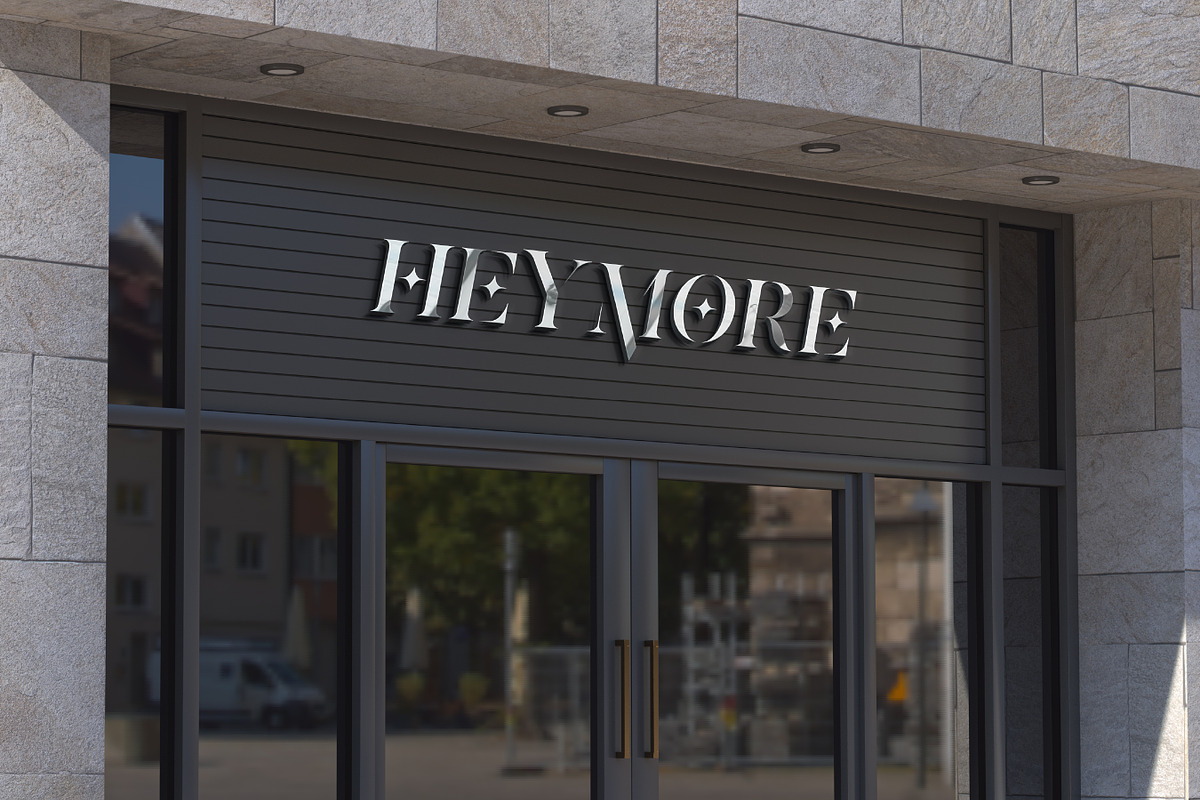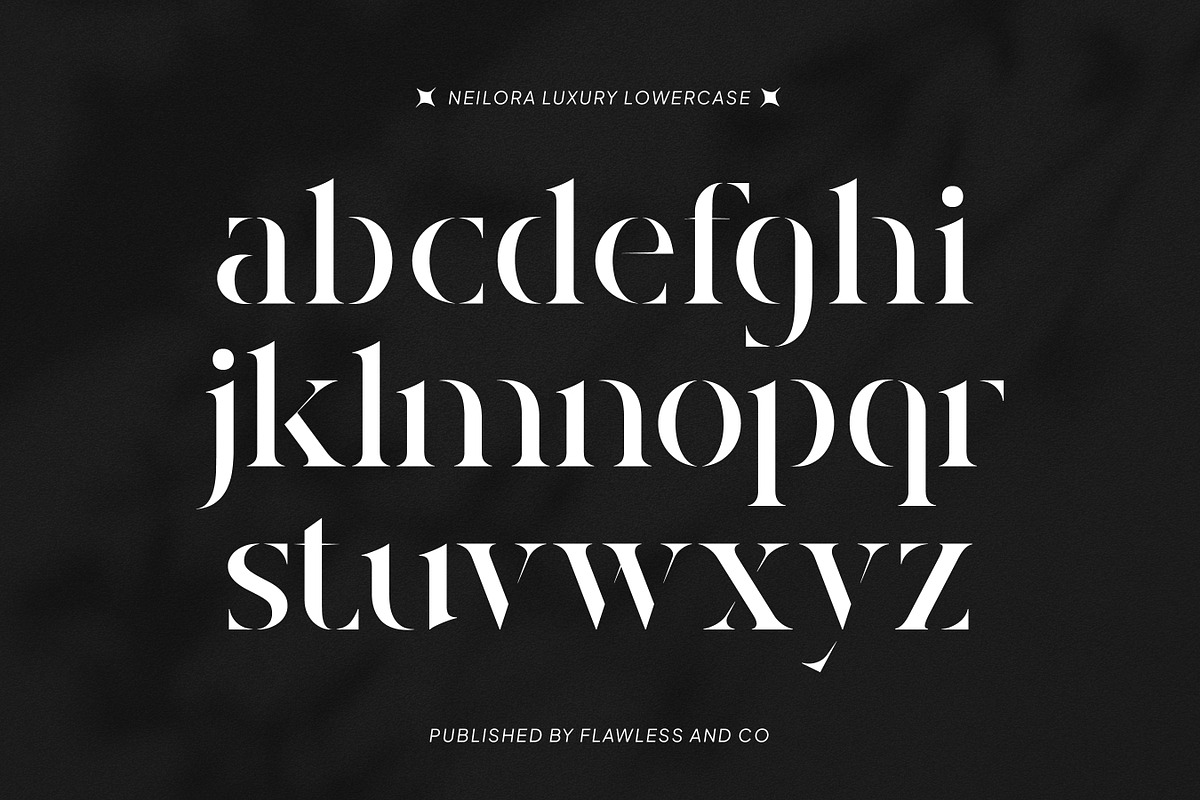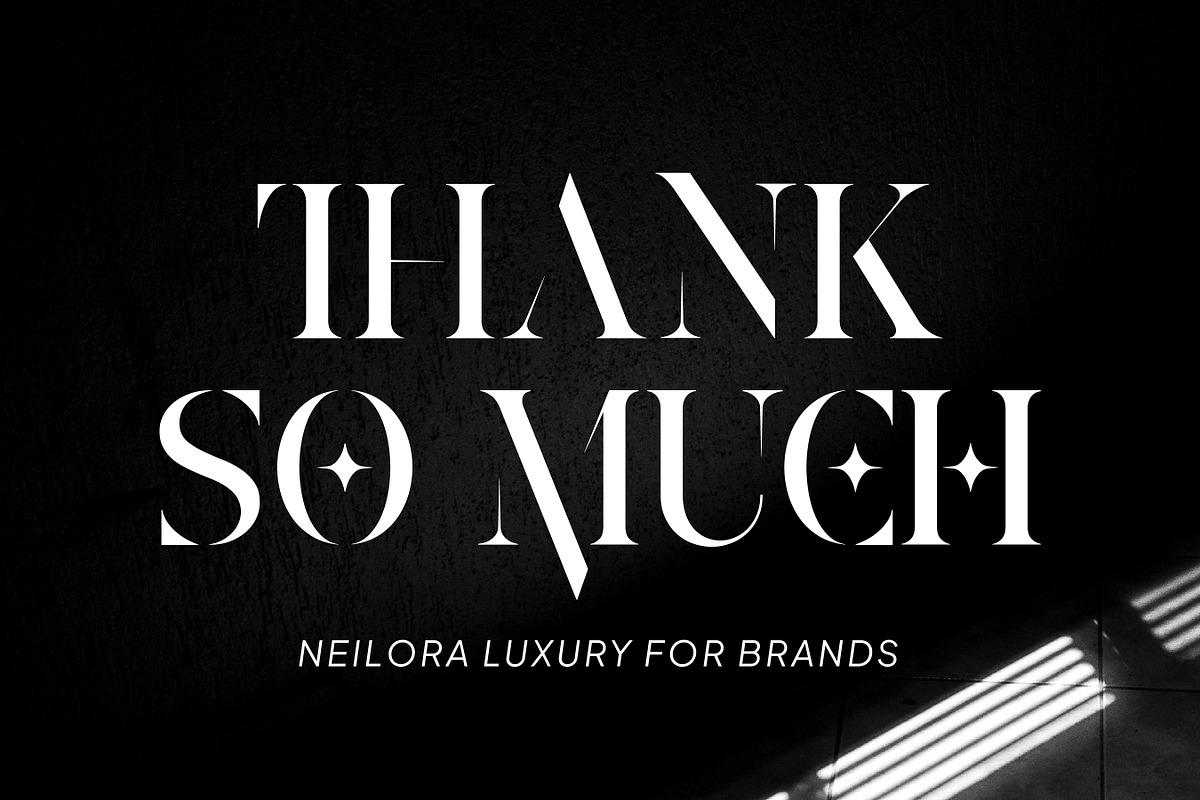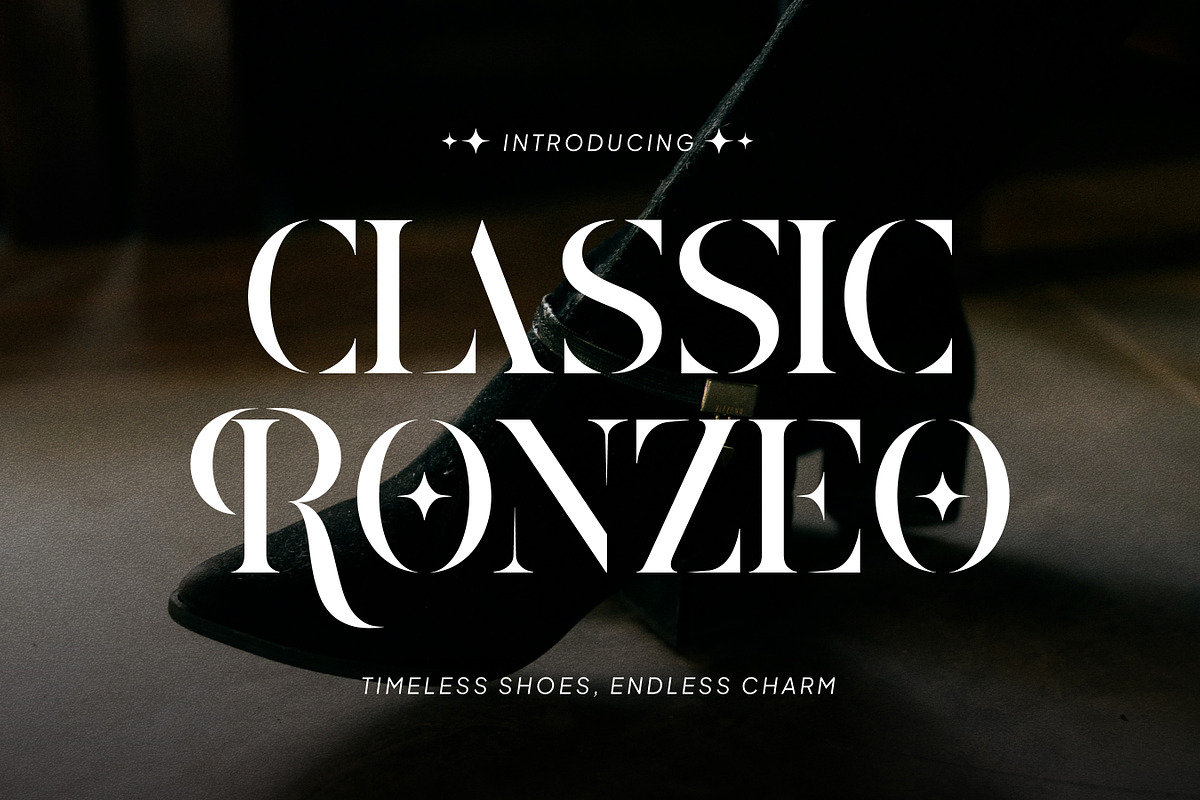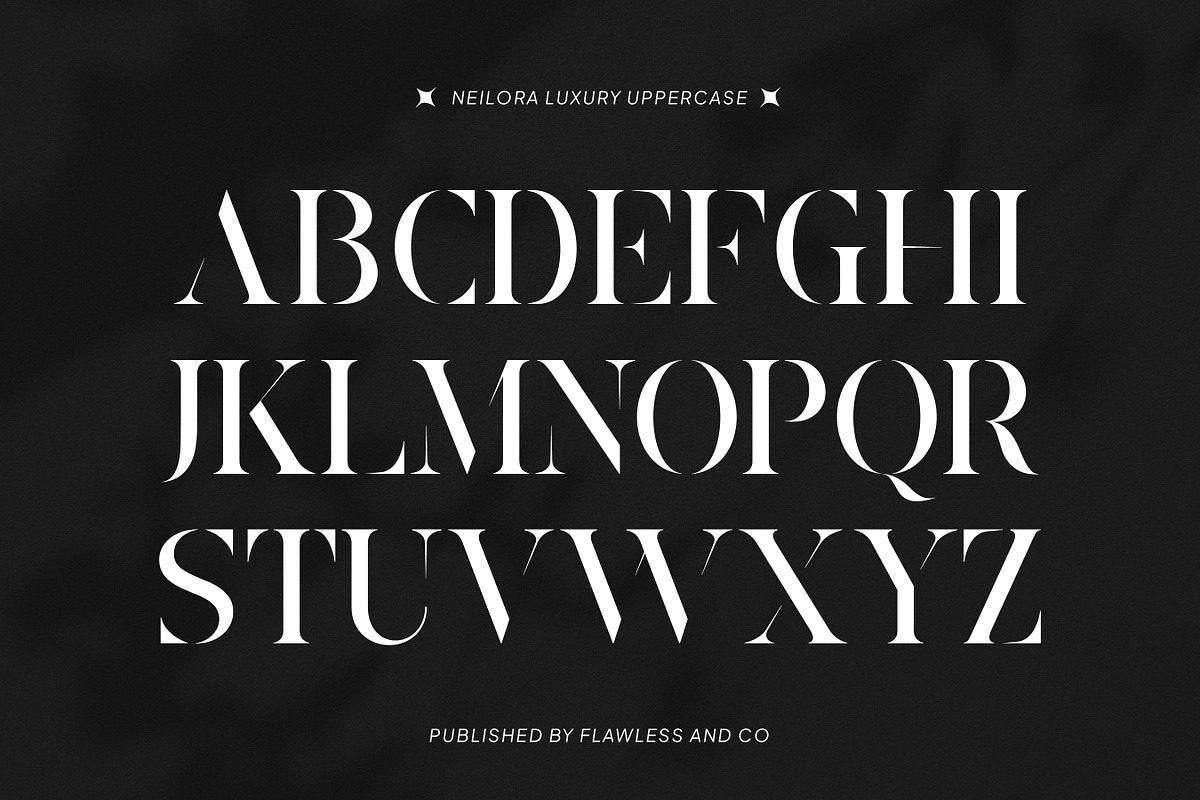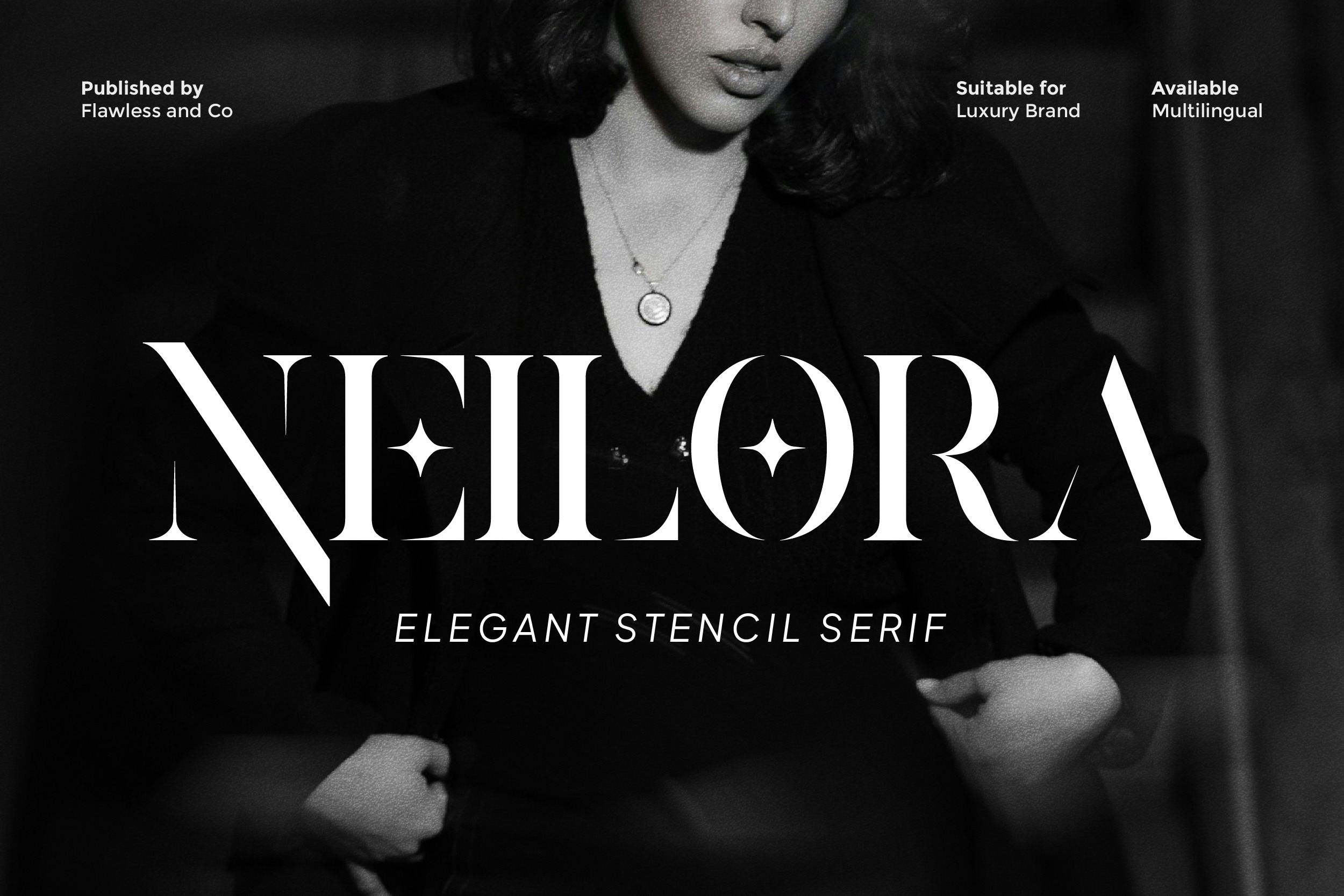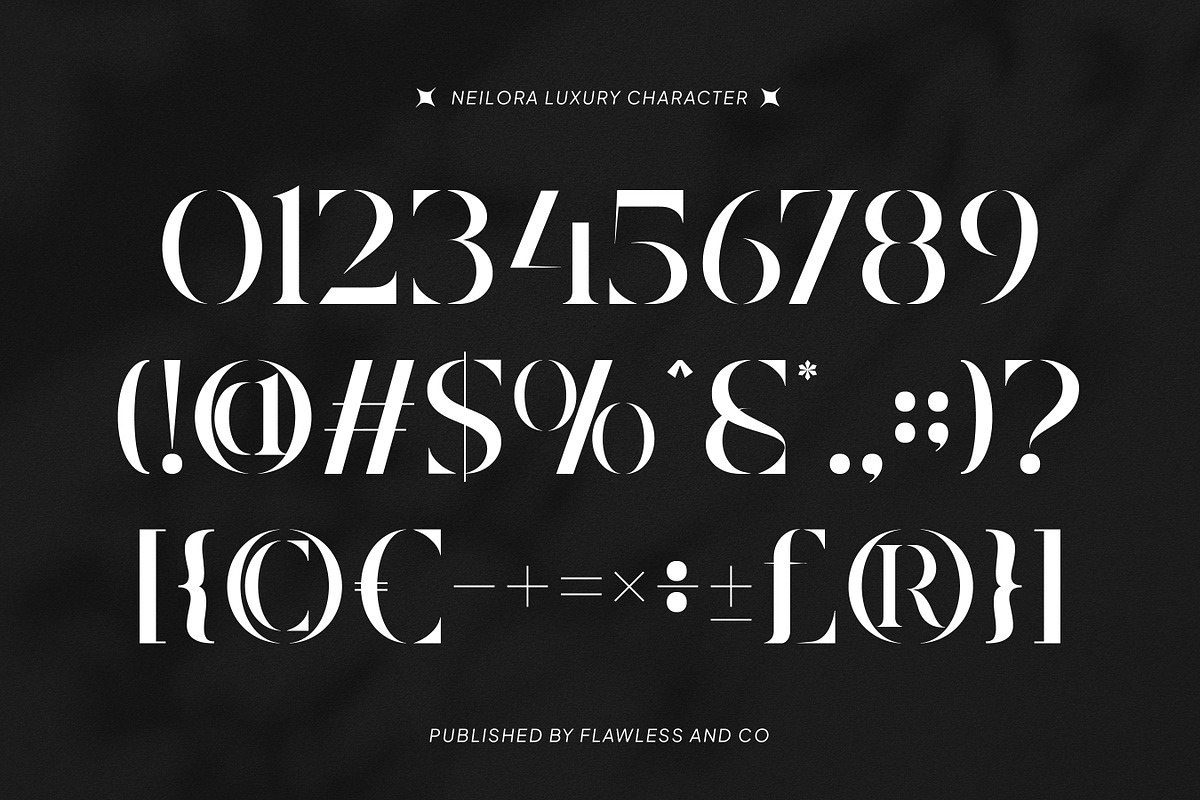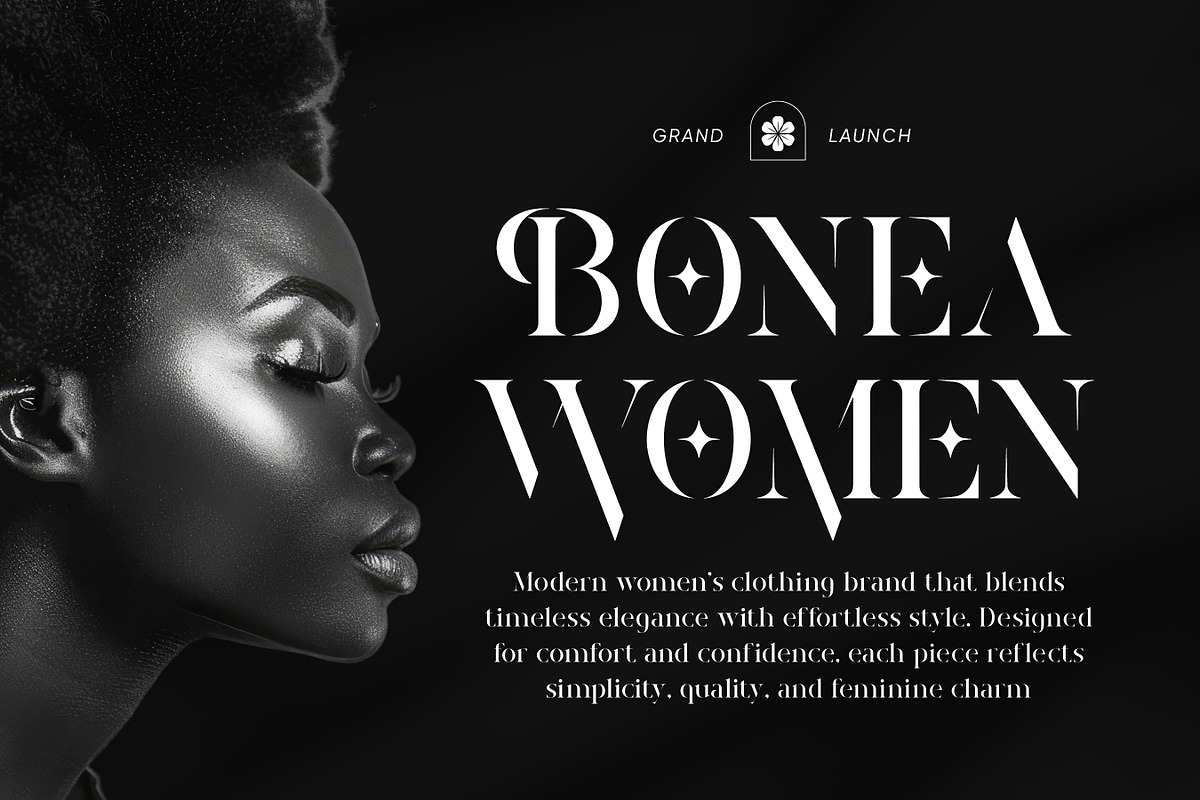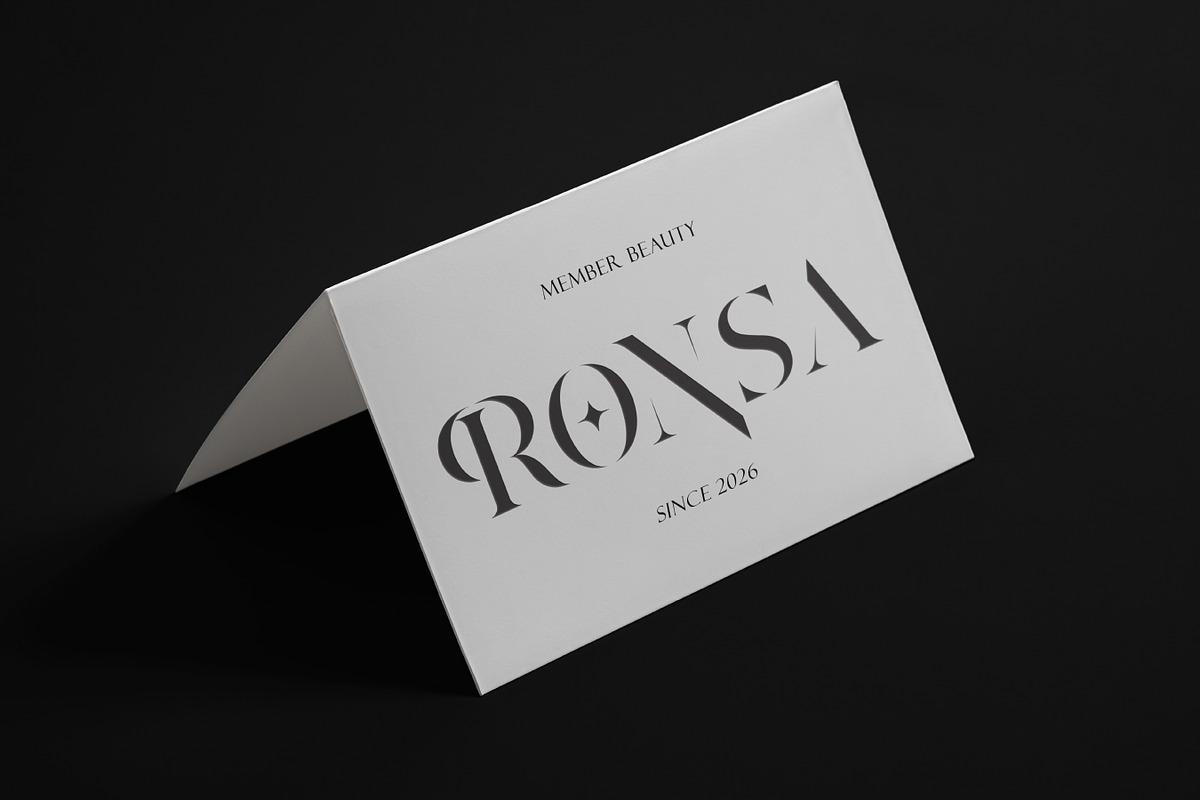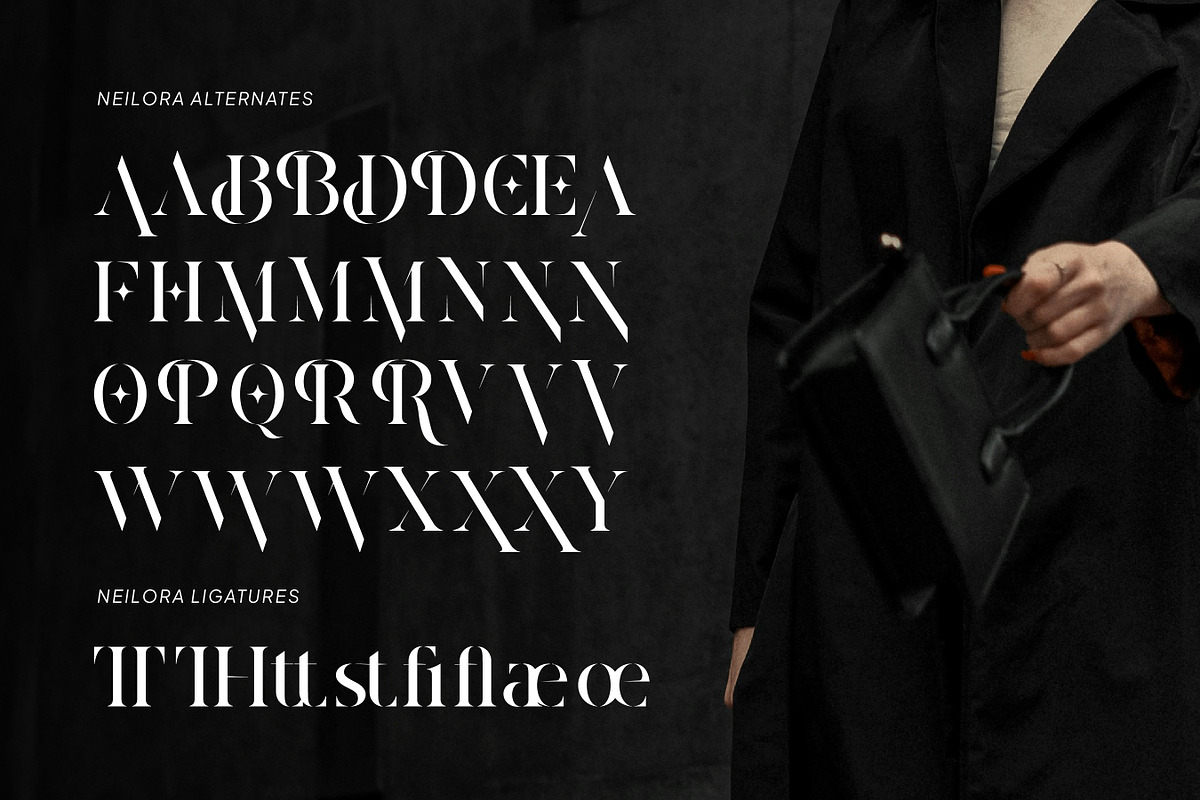
Neilora - Elegant Stencil Serif Font
Neilora is an elegant stencil serif typeface crafted to elevate luxury branding with a distinctive and refined character. Combining classic serif elegance with modern stencil cuts, Neilora creates a unique visual identity that feels exclusive, stylish, and high-end. Its sophisticated letterforms and balanced structure make it perfect for premium designs that demand both clarity and artistic detail. Whether used for logos, packaging, or editorial layouts, Neilora delivers a luxurious aesthetic with a bold and memorable presence.
Who Should Use Neilora?
Neilora is perfect for designers, luxury brands, and creatives who want to build a strong and elegant identity with a unique twist. It’s especially suited for projects that require a premium look with a blend of classic beauty and modern sophistication.
Suitable For:
- Luxury branding and identity design
- High-end logo creation
- Premium packaging and labels
- Fashion and beauty branding
- Editorial and magazine layouts
- Boutique and lifestyle branding
- Social media visuals
- Elegant display typography